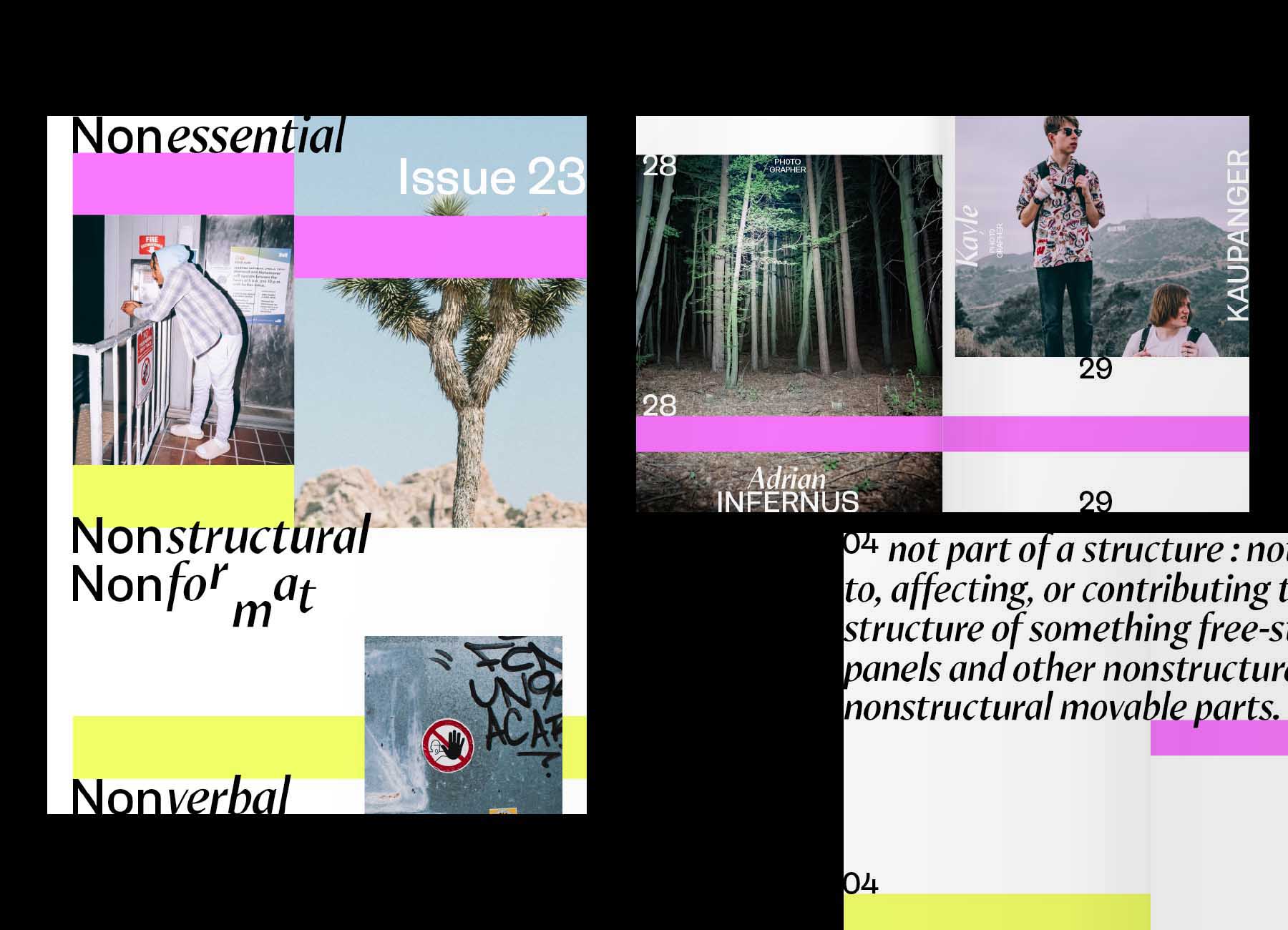
Min Sans is a modern high-contrast sans-serif typeface.
Its journey began in 2016, and it made its debut on FutureFonts in 2020. The typeface has a contemporary proportions with hint of calligraphic construction. Its sharp notch and clean contour exude a crisp personality and a refreshing look, while its calligraphy-inspired aesthetic adds a touch of warmth and elegance. Min Sans is designed primarily for titles, headlines and subheads.
The stencil version is introduced in 2023 and released as a new family on FutureFonts. It brings an urban and industrial look to Min Sans. The combination of its calligraphy-influenced skeleton and mechanical details gives the typeface a sophisticated yet urban quality.
The Min Sans family is available in six weights and their corresponding italics.